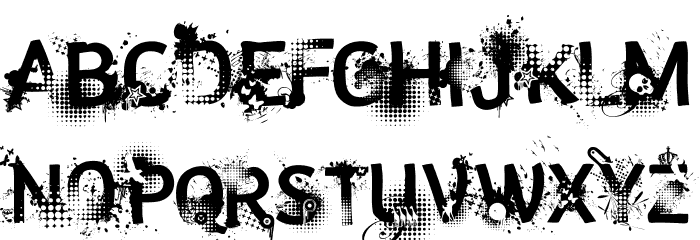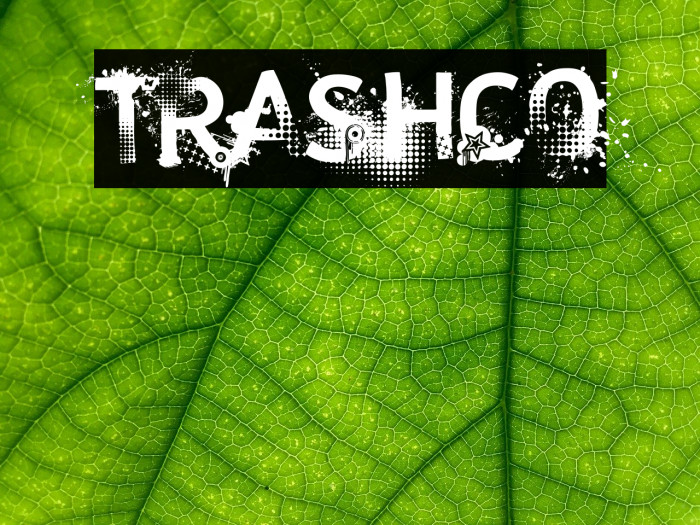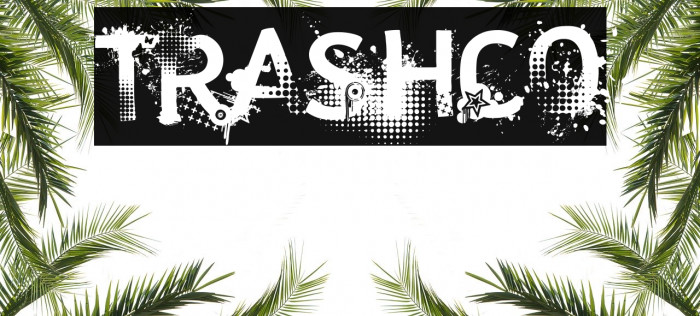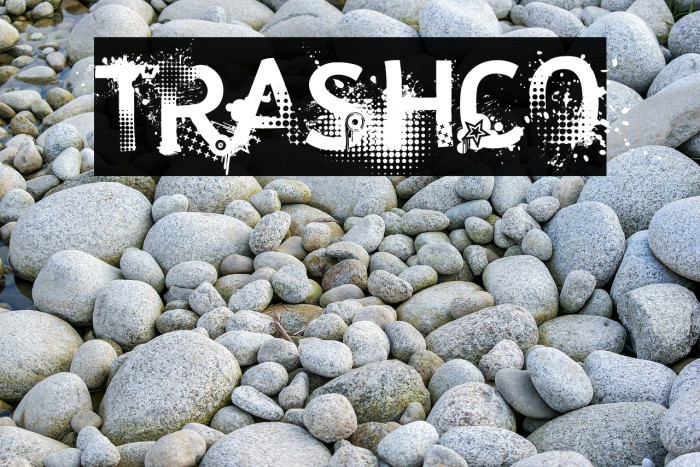
trashco Font
This font features a bold and edgy design with a grunge aesthetic. The letters are adorned with splatters, scratches, and halftone patterns, giving it a distressed and chaotic look. The uppercase and lowercase characters maintain a consistent style, with each letter uniquely incorporating elements of decay and urban art. The numbers and special characters follow the same theme, ensuring a cohesive appearance across all glyphs. This font is ideal for projects that require a rebellious or alternative vibe, such as music album covers, posters, or streetwear branding.
A bold, grunge-style font with distressed and chaotic elements.
- Proposed Projects: Music album covers, posters, streetwear branding, urban-themed designs.
- Overall Style: Grunge, Urban, Edgy